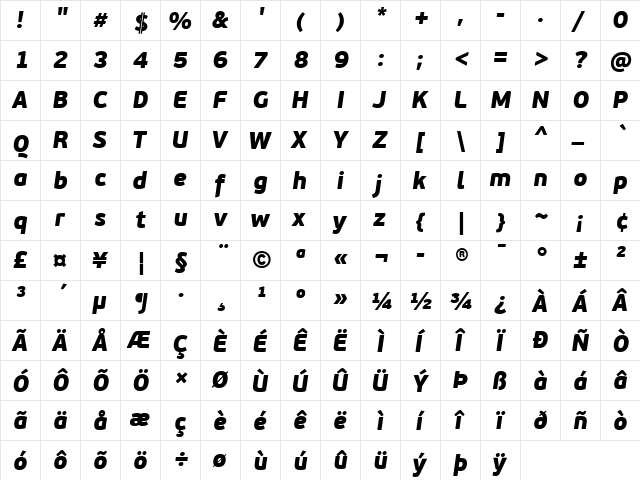
PF BeauSans Pro Black Italic
Black Italic · Parachute蠗orldwide Panos Vassiliou ·
DesignerPanos Vassiliou
Design Context for PF BeauSans Pro Typeface
PF BeauSans Pro offers clean, dependable letterforms without strong stylistic allegiance, making it a practical choice for designers who need flexibility. The slanted form adds forward momentum and visual energy.
Pro Tip: Try PF BeauSans Pro for annotation and caption copy alongside an upright companion — the contrast in angle creates a dynamic but ordered typographic system.